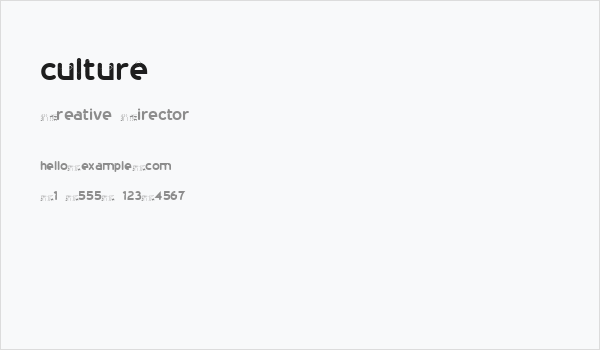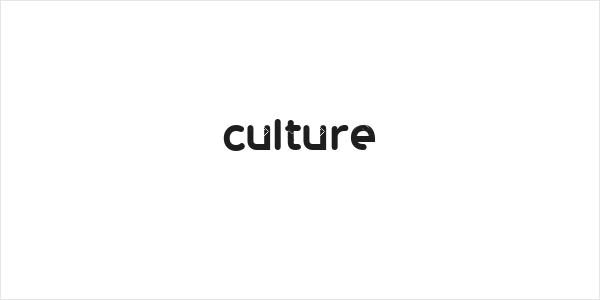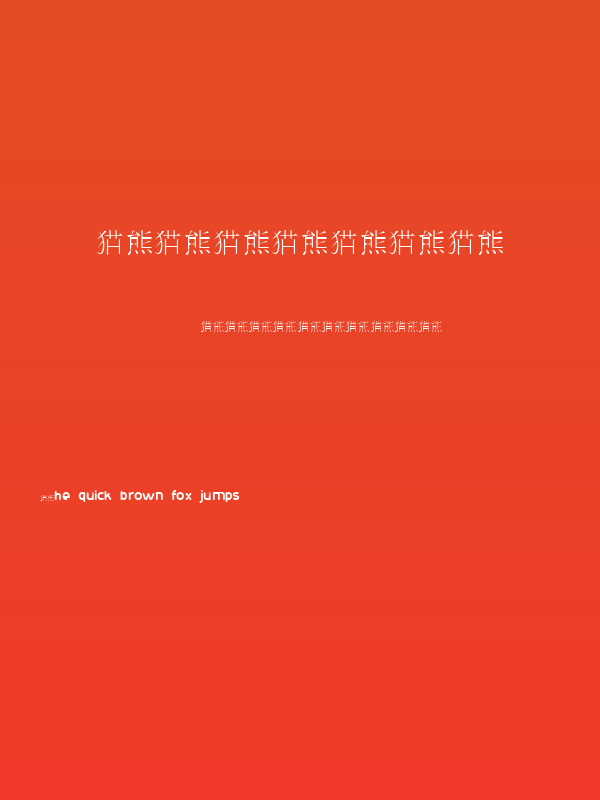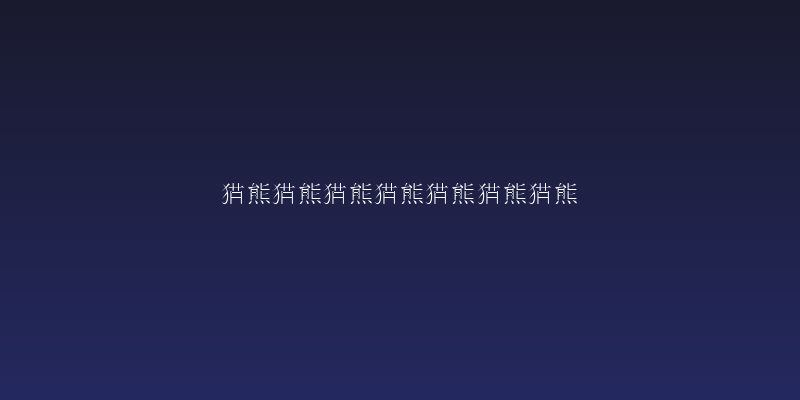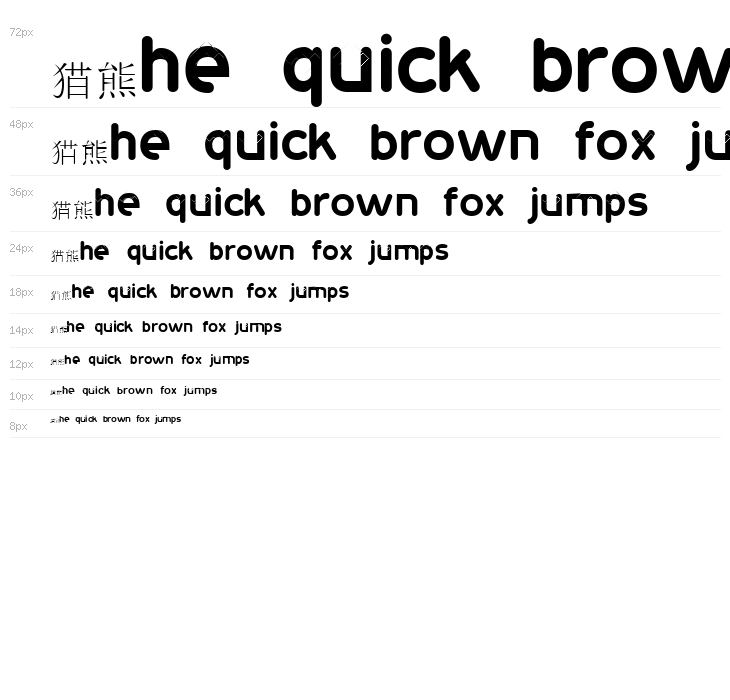
culture Font
culture Description
This font features a bold and rounded design, characterized by its smooth curves and uniform stroke width. The letters are well-balanced, with a modern and friendly appearance. The lowercase letters have a consistent height, contributing to a clean and cohesive look. The numerals are distinct and easy to read, maintaining the same rounded style. Special characters are integrated seamlessly, enhancing the font's versatility. Overall, this typeface exudes a contemporary and approachable vibe, suitable for a variety of design applications.
| Use Case | Headlines, Logos, Digital Media |
| Proposed Projects | Ideal for branding, advertising, packaging, and digital media projects where a modern and approachable look is desired. |